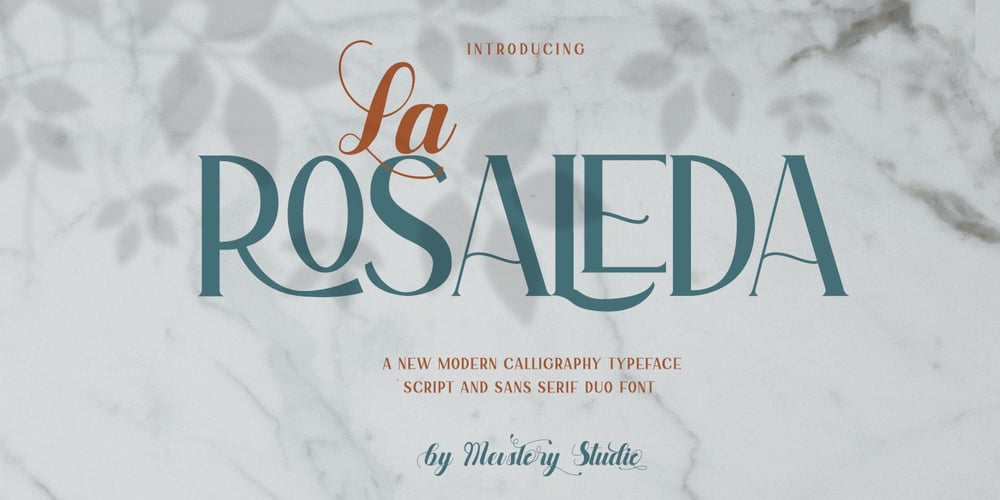
La Rosaleda
La Rosaleda font
La Rosaleda Font Family was designed by Muhammad Afif Ersya and published by Mevstory Studio. La Rosaleda contains 2 styles and family package options. La Rosaleda Font Duo is a ligature font pair with 30 amazing chic logo templates. With this open type font duo you can explore your creativity in unlimited way. To recreate your brand all you need is mix and match from the La Rosa font duo. This font duo is full of stylish ligatures, so that your writing with La Rosaleda can stand out.- Font Features: All fonts are OpenType fonts All fonts are fully vector designed Accurate kerning for all serif family Amazing ligatures to look natural in script font Alternative characters for script lowercase alphabets Multilingual Support for Both Scrip and Serif All OpenType fonts, Serif and Script. 30 Fully editable logos for Adobe Photoshop or Adobe Illustrator Font installing help file for PC and Mac Web-fonts for Script and Serif